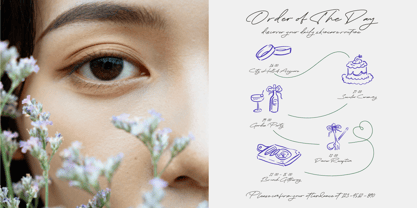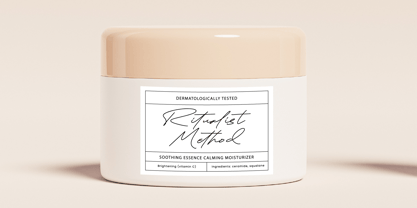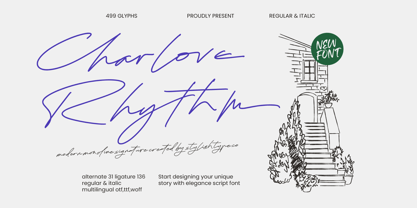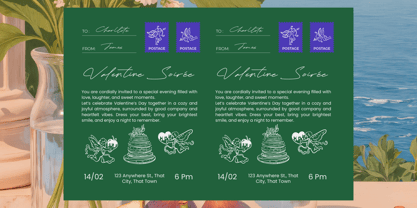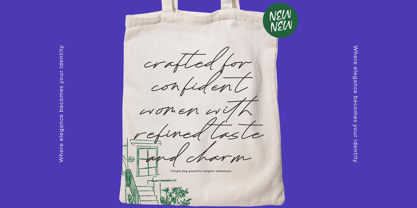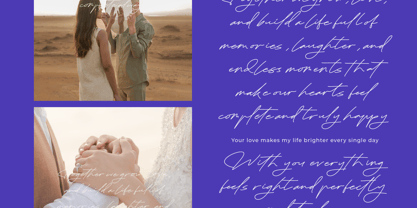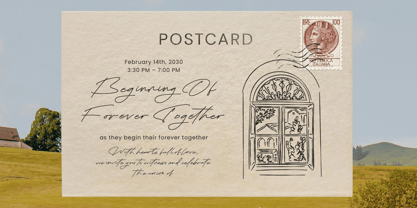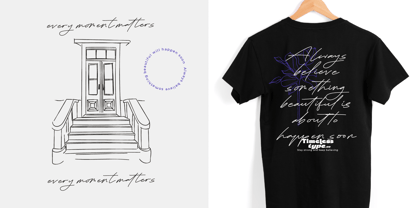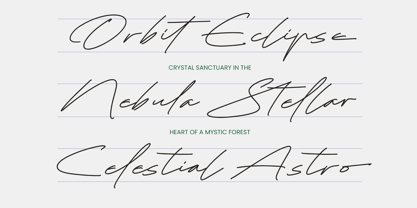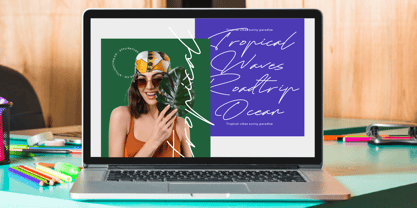
Charlove Rhythm
La familia tipográfica Charlove Rhythm fue diseñada por Heru Utama Putra y publicada por Stylishtype Studio. Charlove Rhythm contiene 2 estilos y opciones de paquete familiar. Más información sobre esta familia
Charlove Rhythm - Modern Monoline Signature Charlove Rhythm is a modern monoline signature script font that captures the beauty of natural handwriting with a touch of refined elegance. Designed to convey warmth, sophistication, and authenticity, this typeface features smooth flowing strokes and graceful connections, making it perfect for creating personal and stylish designs. With 499 glyphs, 136 ligatures, and 31 stylistic alternates, Charlove Rhythm offers exceptional flexibility and creative freedom. The inclusion of both Regular and Italic styles allows designers to craft harmonious and dynamic typographic compositions. Its multilingual support ensures seamless use across a wide range of languages. Whether you're designing wedding invitations, branding, logos, social media graphics, or elegant packaging, Charlove Rhythm delivers a timeless and personal aesthetic that enhances any visual project.